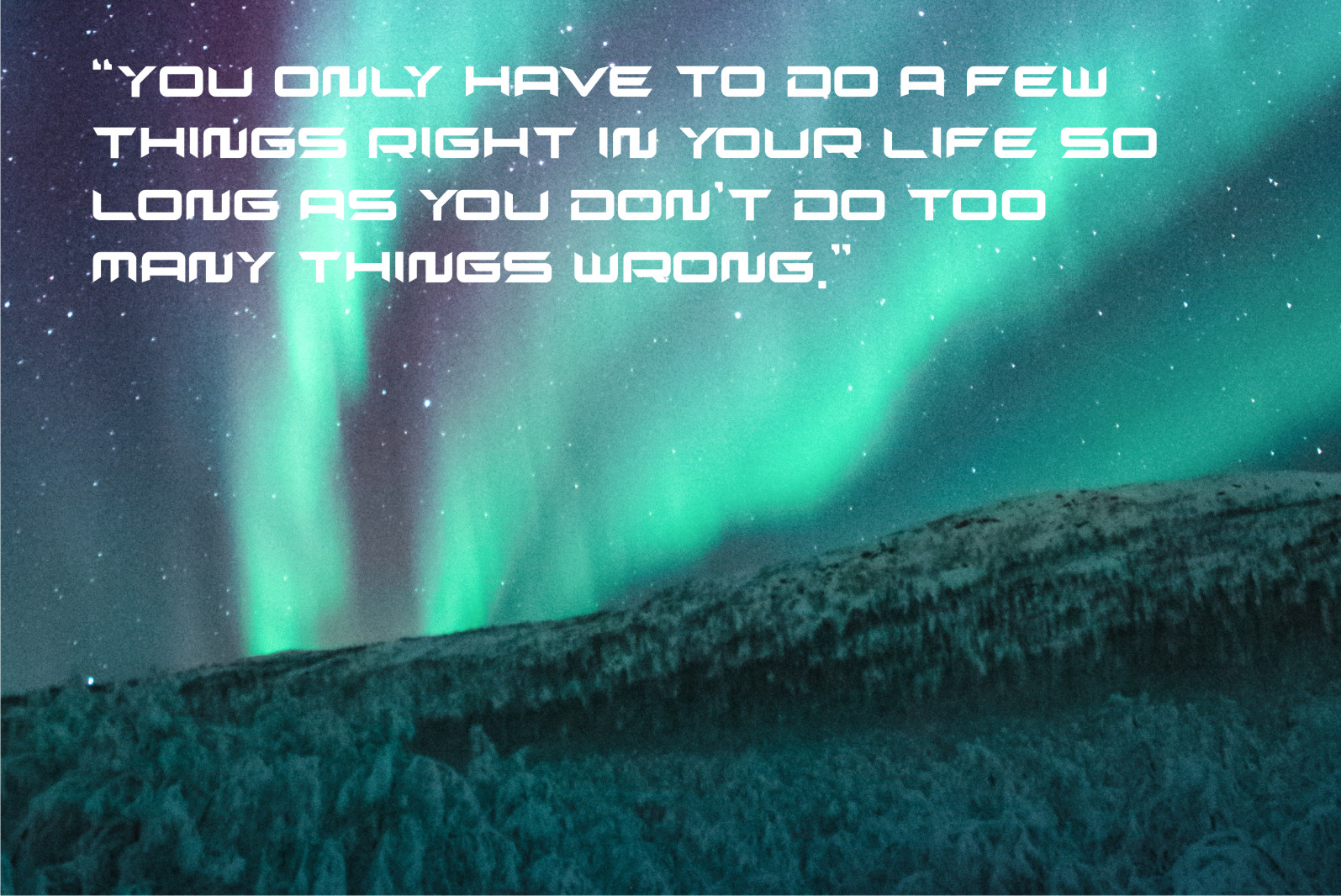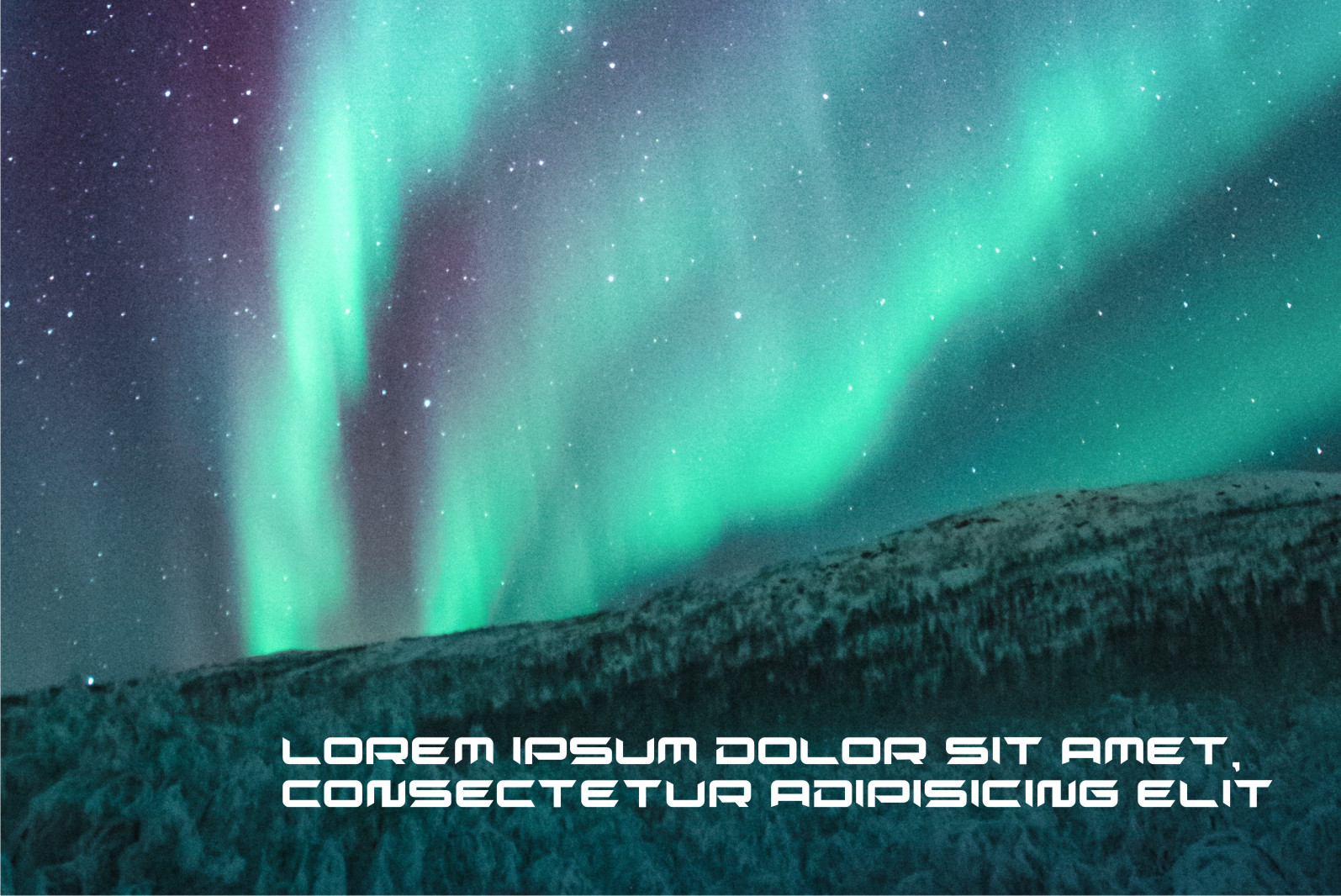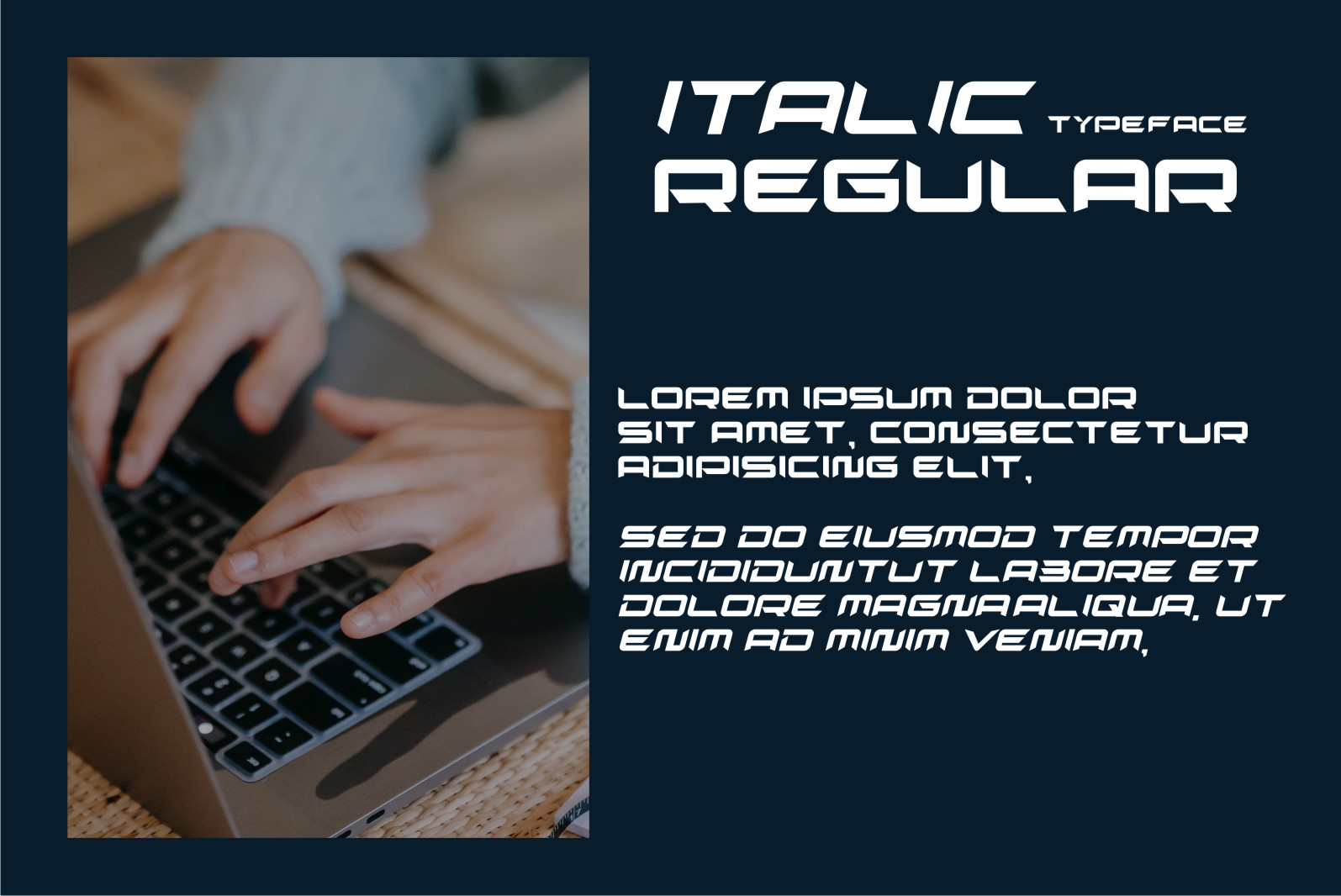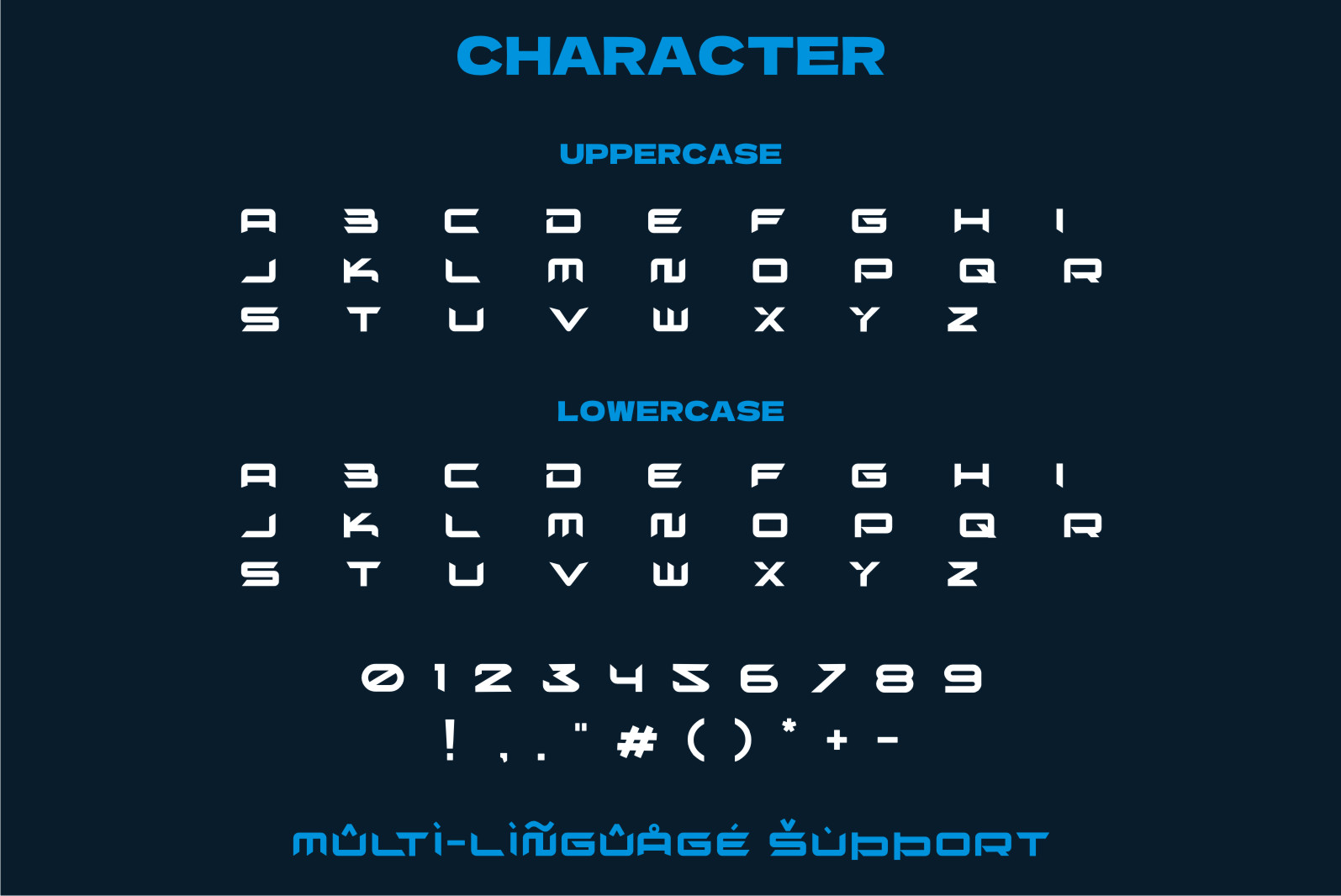
Xeare Font
Xeare Font is a cool and robotic-styled display font. This font is ideal for writing web designs, business cards, or pretty much anything else that requires a futuristic touch.